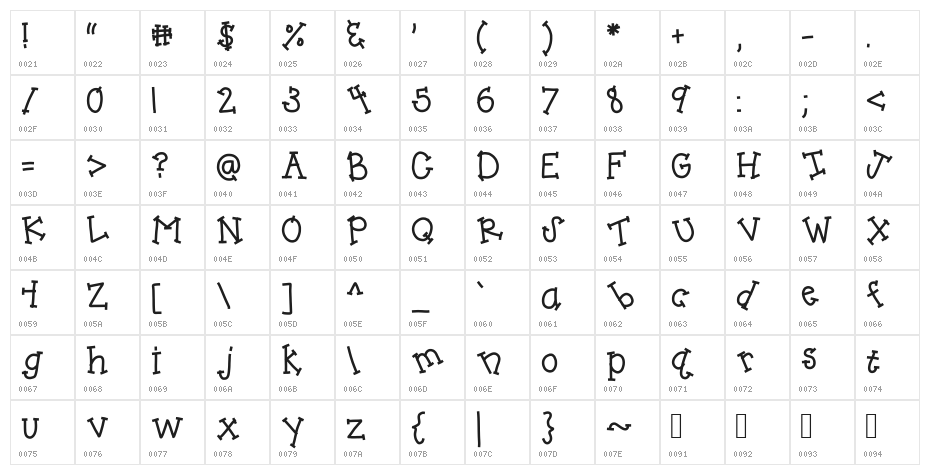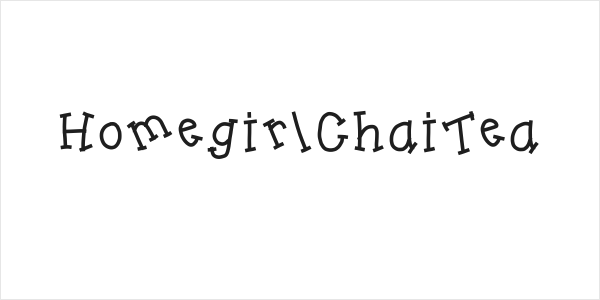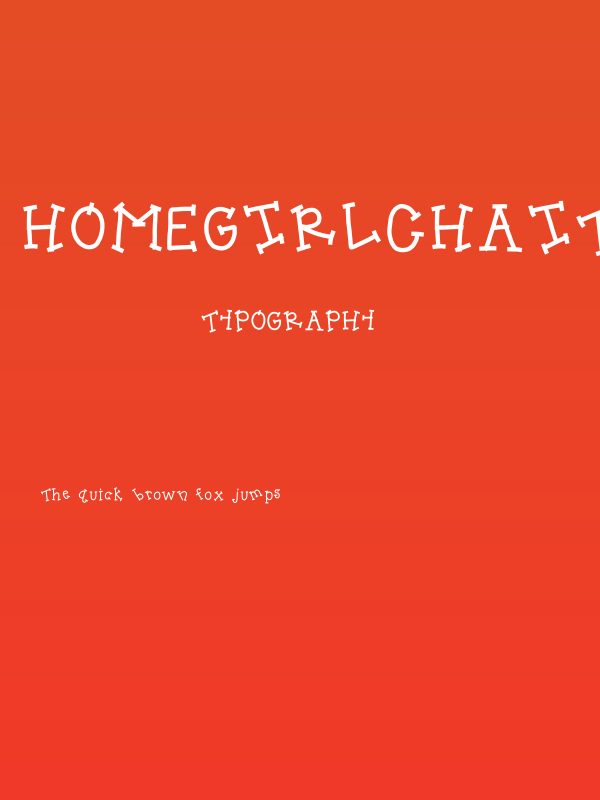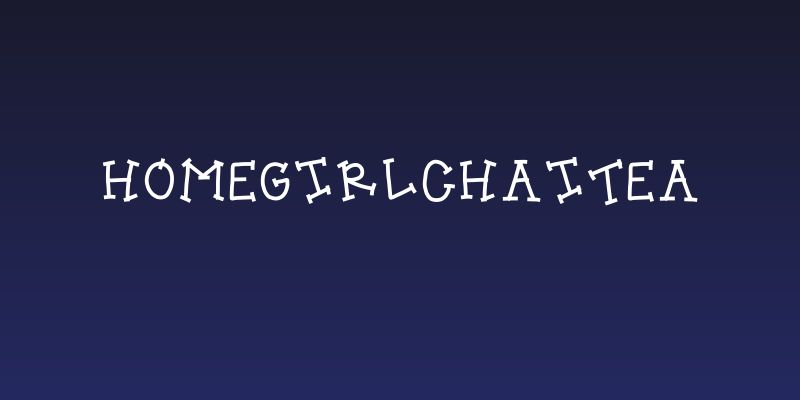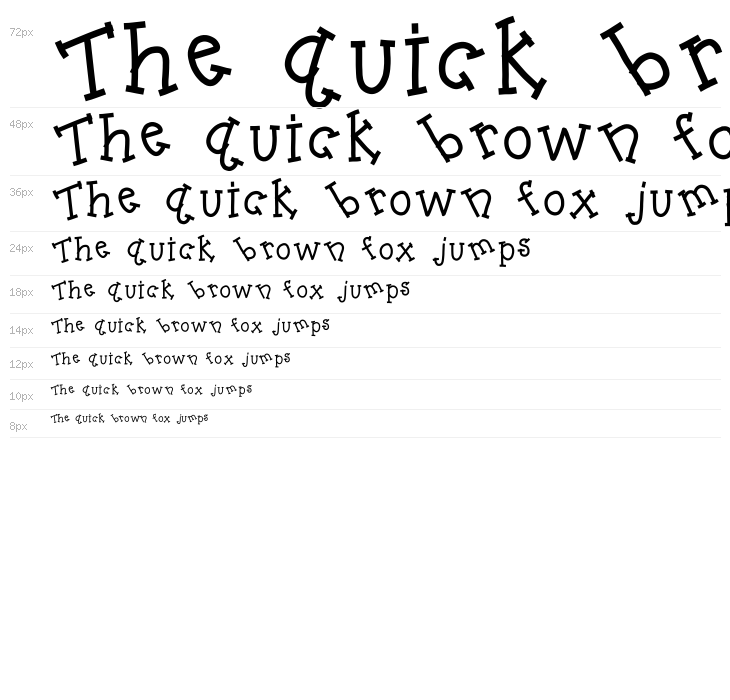
HomegirlChaiTea Font
HomegirlChaiTea Description
This playful and whimsical font features a unique, hand-drawn style with irregular, quirky letterforms that give it a lively and energetic feel. The characters are slightly tilted and vary in size, adding to the font's charm and informal appearance. The strokes are bold and consistent, providing a strong visual impact. The font includes a full set of uppercase and lowercase letters, numbers, and a variety of special characters. Its distinctive style makes it ideal for creative projects that require a fun and engaging typeface.
| Overall Style | Whimsical |
| Proposed Projects | Ideal for children's books, playful branding, greeting cards, and creative posters. |